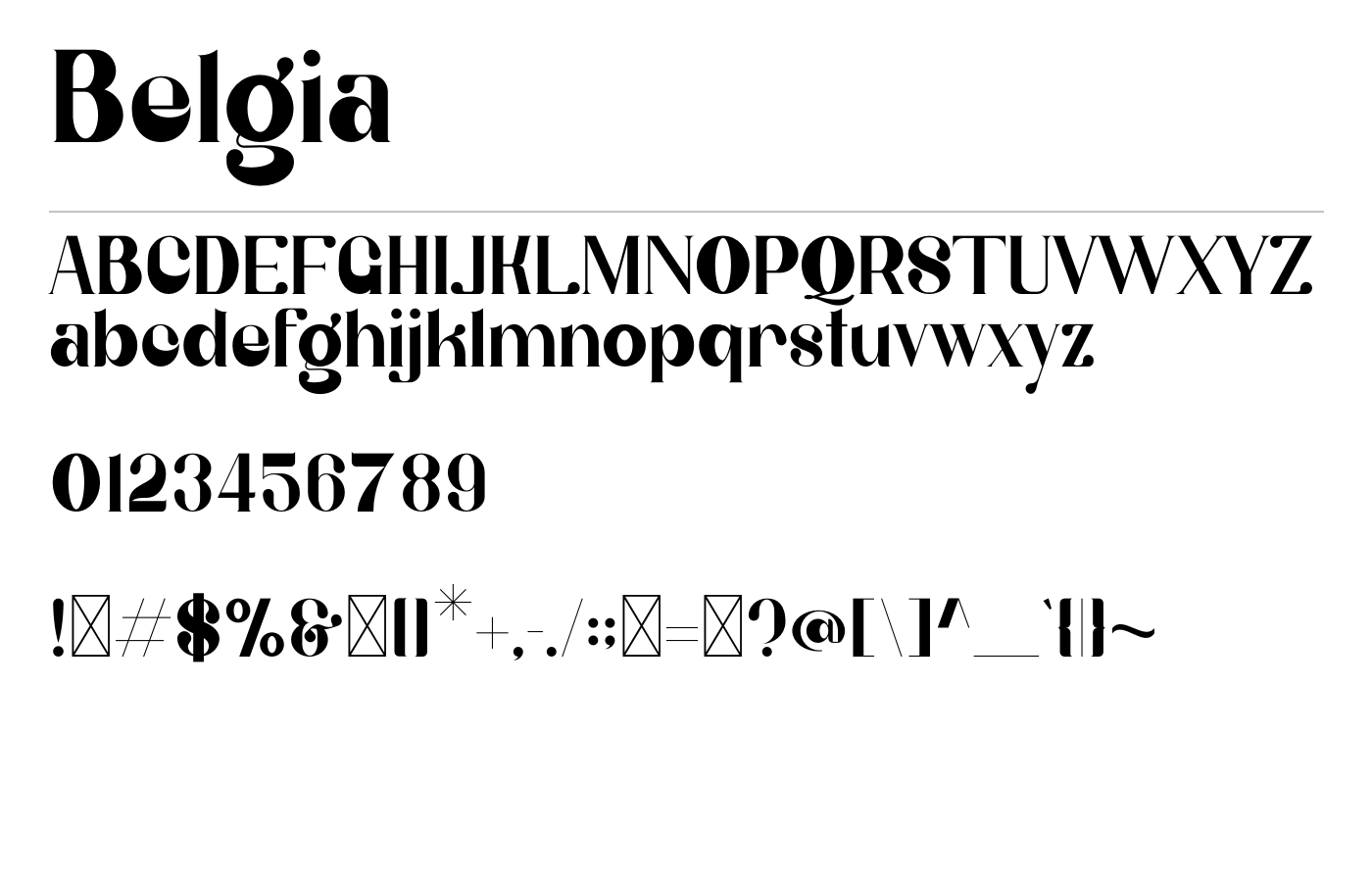
Belgia is a bold serif font with strong contrast between thick and thin strokes, featuring elegant bracketed serifs and a moderate x-height that enhances readability. Its unique letterforms, such as the single-story 'g' and the distinctive tail on the 'Q,' give it a sophisticated and vintage character ideal for luxurious branding, editorial headlines, and stylish packaging. This font works well where a dramatic, refined presence is needed to communicate elegance and timeless charm.
Belgia Font
About Belgia Font
| Font family | Belgia Font |
| Designer | Diki Pradipta Tri Atmojo |